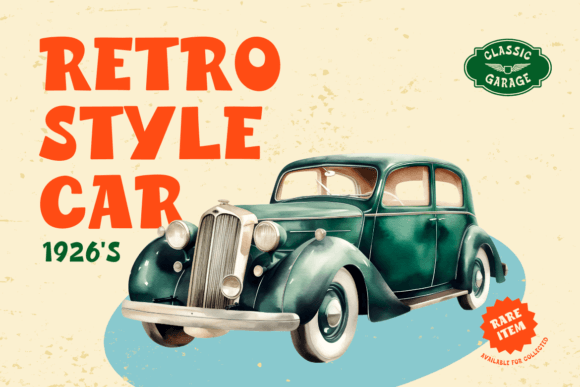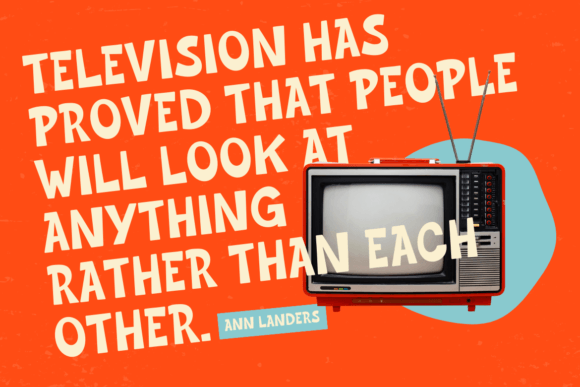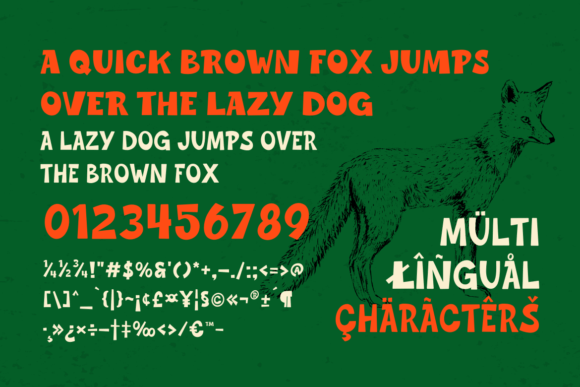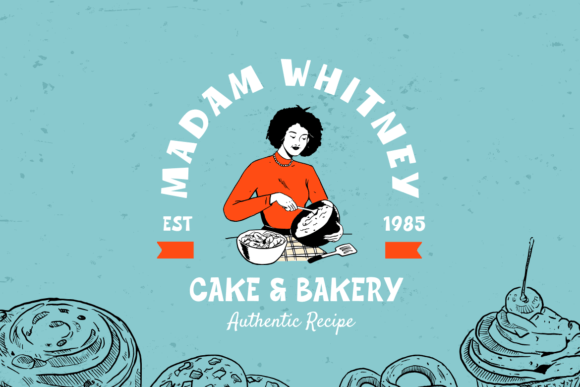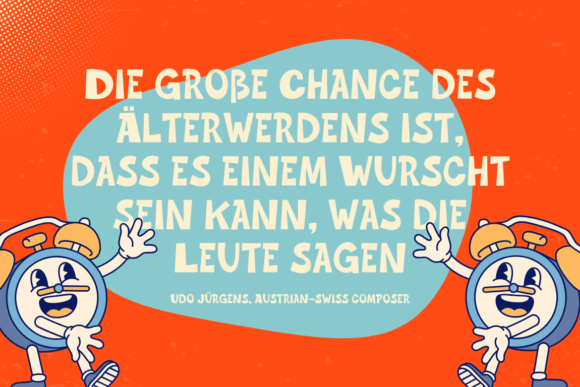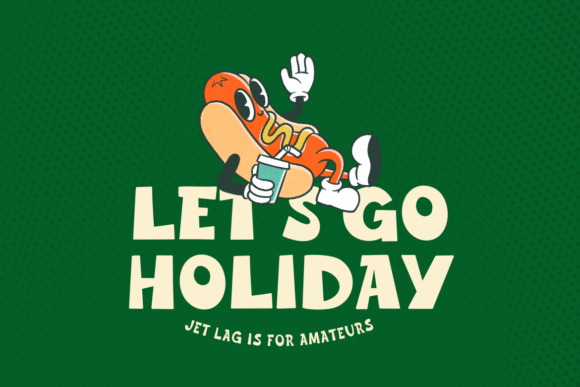
Meet Badrika: The Delightfully Retro Font That’s Making a Comeback
In the world of typography, fonts come and go, but some leave a lasting impression. Badrika, a charming retro font with a vintage twist, is one such gem that’s sure to capture your heart. Crafted in all caps, Badrika brings a playful yet bold aesthetic to any design, making it perfect for adding a touch of nostalgia to branding, posters, and more.
The Story Behind Badrika
Badrika’s story begins with a passion for vintage typography. The creators of this delightful font drew inspiration from the classic fonts of the past, reviving the essence of a bygone era. The result is a font that’s both nostalgic and modern, with a unique personality that’s hard to resist.
Design Features of Badrika
Badrika’s design features are what set it apart from other fonts. Here are some of its key characteristics:
- All-Caps Design: Badrika is crafted in all caps, giving it a bold and playful aesthetic.
- Multilingual Support: This font supports multilingual characters, making it perfect for designs that require a global reach.
- Regular and Oblique Styles: Badrika is available in both regular and oblique styles, providing flexibility and versatility in your designs.
- Vintage Twist: Badrika’s vintage twist adds a touch of nostalgia to any design, making it perfect for projects that require a retro feel.
Badrika is a font that’s designed with designers and crafters in mind. Its unique features make it perfect for a variety of projects, including:
- Branding: Add a touch of nostalgia to your brand’s identity with Badrika.
- Posters: Create eye-catching posters with Badrika’s bold and playful aesthetic.
- Packaging: Use Badrika to add a vintage touch to your product packaging.
- Digital Designs: Badrika is perfect for digital designs, including social media graphics, website headers, and more.
Why Choose Badrika?
With so many fonts available, why choose Badrika? Here are just a few reasons:
- Unique Personality: Badrika has a unique personality that’s hard to find in other fonts.
- Versatility: Badrika’s regular and oblique styles provide flexibility in your designs.
- Nostalgic Feel: Badrika’s vintage twist adds a touch of nostalgia to any design.
Get Ready to Dive into the Charm of Yesteryears
With Badrika, you can add a touch of nostalgia to your designs. Whether you’re a designer, crafter, or DIY enthusiast, this font is sure to inspire. So why wait? Dive into the charm of yesteryears with Badrika and discover a world of creative possibilities.
In conclusion, Badrika is a delightfully retro font that’s perfect for adding a touch of nostalgia to your designs. With its unique features, versatility, and nostalgic feel, it’s a font that’s sure to capture your heart. So why not give Badrika a try and see how it can elevate your designs?